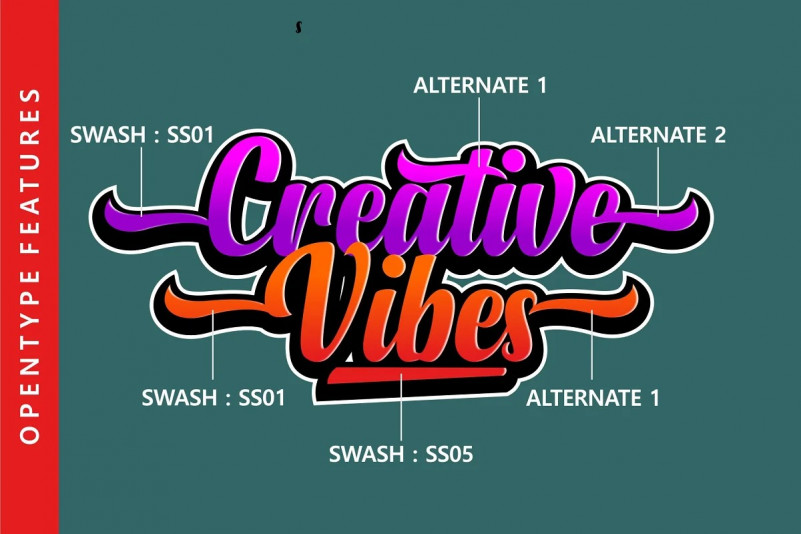
Degan Font
Proudly present, Degan Script font is a strong handwritten script. Inspired by Vintage style and combined with Hand Lettering style.
This elegant type comes packed with lot’s of alternate characters that allow you to come up with unique designs each time you use it.
Every single curve has my personality touch since I use my manual hand lettering brush. It is great for making logotype, branding, promotional ads, quotes design, packaging, t-shirt design. merchandise, poster, merchandise, social media and much more.